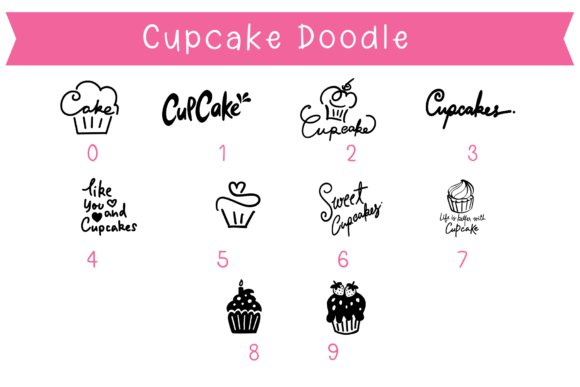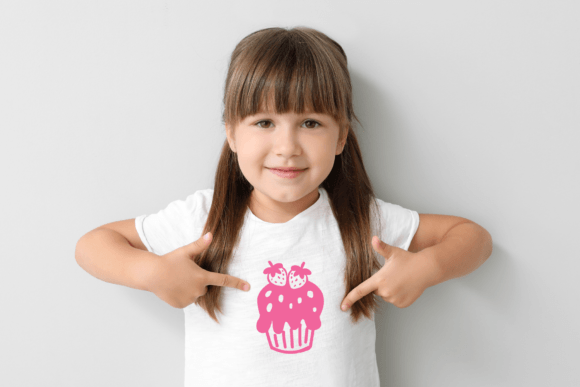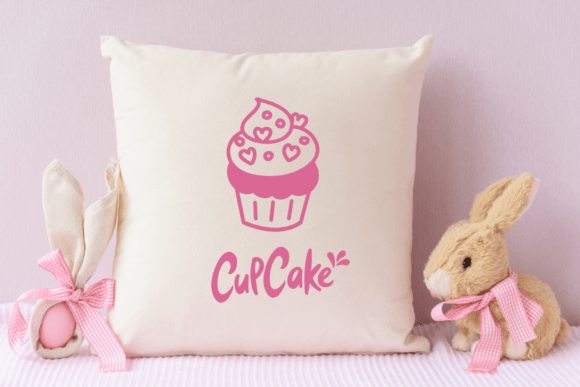
The Sweetest Addition to Your Design Toolbox
Who hasn’t been there? You’re brainstorming ideas for a birthday party invitation or a wedding shower decoration, and suddenly, the perfect design pops into your head – a whimsical cupcake, topped with colorful sprinkles, and surrounded by sweet treats. The Cupcake Doodle Font is the perfect companion for such creative moments, elevating your designs with its adorable icons of cupcakes, frosting, and more.
This delightful dingbats font is a must-have for designers looking to add a playful touch to their work. With its wide range of icons, the Cupcake Doodle Font is a versatile tool that can be used in various projects, from greeting cards to party decorations. By incorporating this sweet font into your designs, you’ll bring joy and happiness to your audience, making it a valuable addition to any designer’s toolbox.
Cupcake Doodle Font Key Features
- Unique Characteristics: The Cupcake Doodle Font features a playful, whimsical design with a mix of uppercase and lowercase letters, numbers, and symbols. It’s perfect for adding a touch of fun and creativity to your designs.
- Font Style: The Cupcake Doodle Font is a handwritten font, with a loose, cursive feel that’s reminiscent of hand-drawn letters.
Cupcake Doodle Font Review
I’ve had the chance to play around with the Cupcake Doodle Font, and I must say it’s a mixed bag. Let’s dive into the details.
- Unique and playful style: The Cupcake Doodle Font has a distinct, whimsical feel that’s perfect for adding a touch of personality to your designs.
- Good for baking and food-related designs: As the name suggests, this font is ideal for creating adorable baking and food-related designs, like cupcake-themed illustrations or restaurant menus.
- Works well for digital and print media: The font’s quality is consistent across various digital and print formats, making it a great choice for a wide range of projects.
- Limited character set: The font’s character set is somewhat limited, which might make it less suitable for longer text-based projects.
- Not ideal for professional or formal designs: The Cupcake Doodle Font’s playful style might not be the best fit for more serious or formal designs, like business reports or academic papers.
Overall, the Cupcake Doodle Font is a great choice for projects that require a touch of whimsy and personality. While it has some limitations, its unique style and versatility make it a valuable addition to any designer’s toolkit.